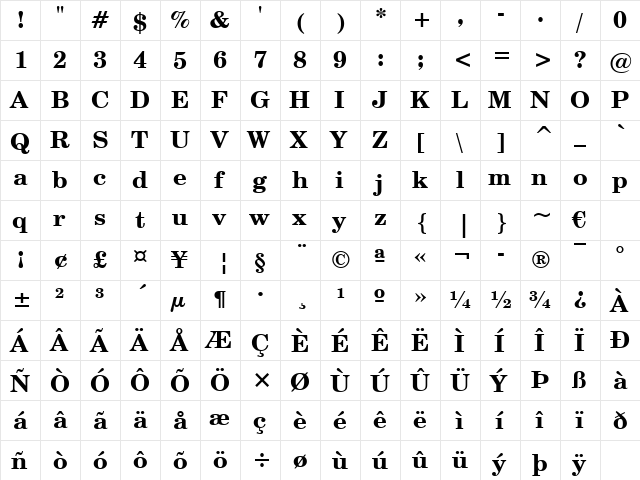
CentSchbook WGL4 BT Bold
Design Context for CentSchbook WGL4 BT Typeface
CentSchbook WGL4 BT takes a measured approach to typography — its balanced proportions and neutral character make it a reliable workhorse for both digital and print work. Its bold stroke weight gives it real presence on the page.